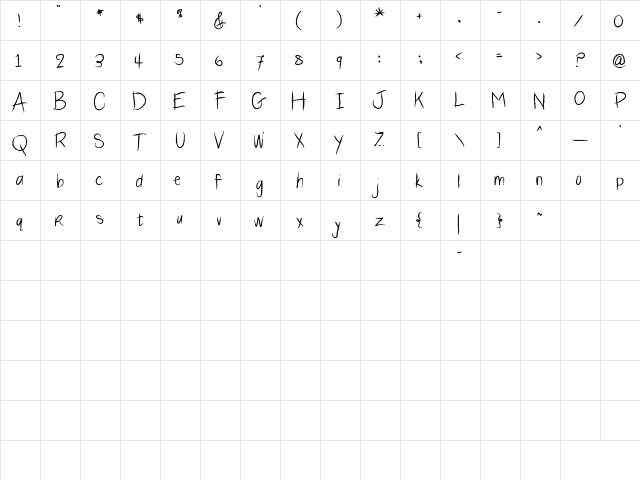
2Peas Batch 31 Regular
Design Context for 2Peas Batch 31 Typeface
2Peas Batch 31 is a composed and adaptable typeface that performs quietly and consistently across a wide range of design contexts.